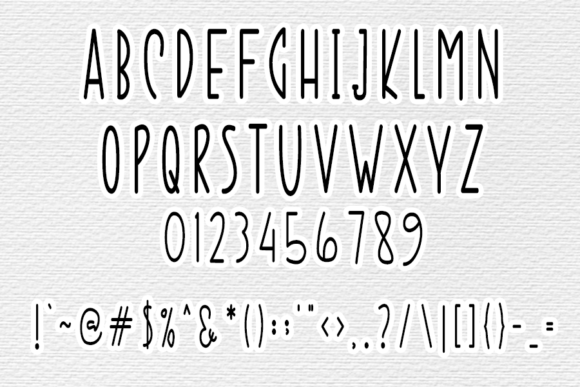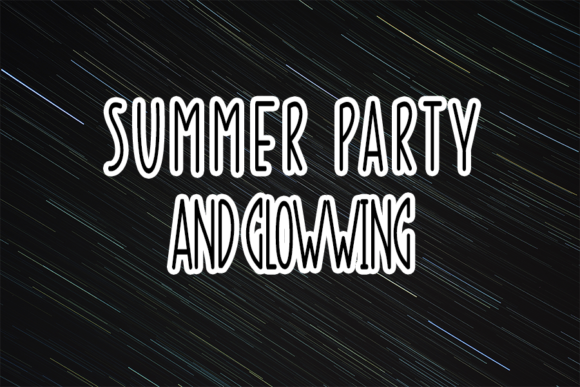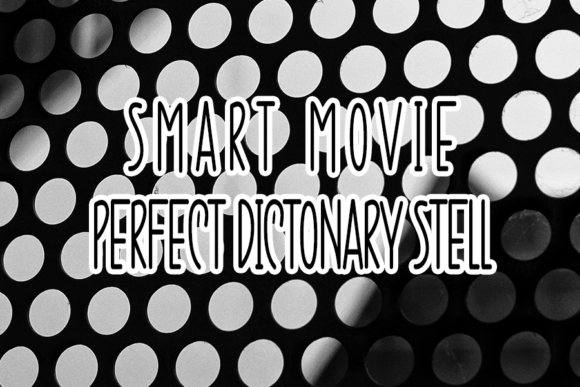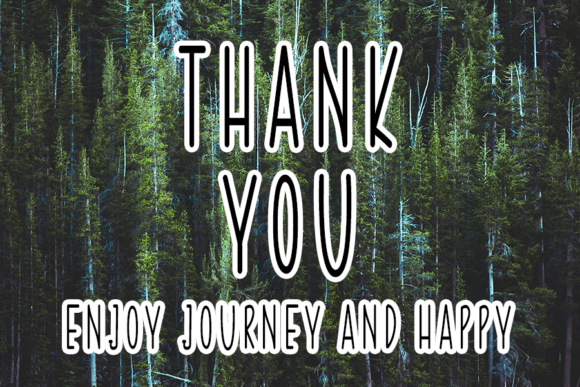
Forest Carnival Font
About Forest Carnival Font
Forest Carnival is a whimsical handwritten font carefully created with a touch of elegance. This is a beautiful combination of timeless elegance and authentic calligraphy.
With its neat and beautiful arrangement of letters, this typeface will look outstanding in both formal and non-formal designs.